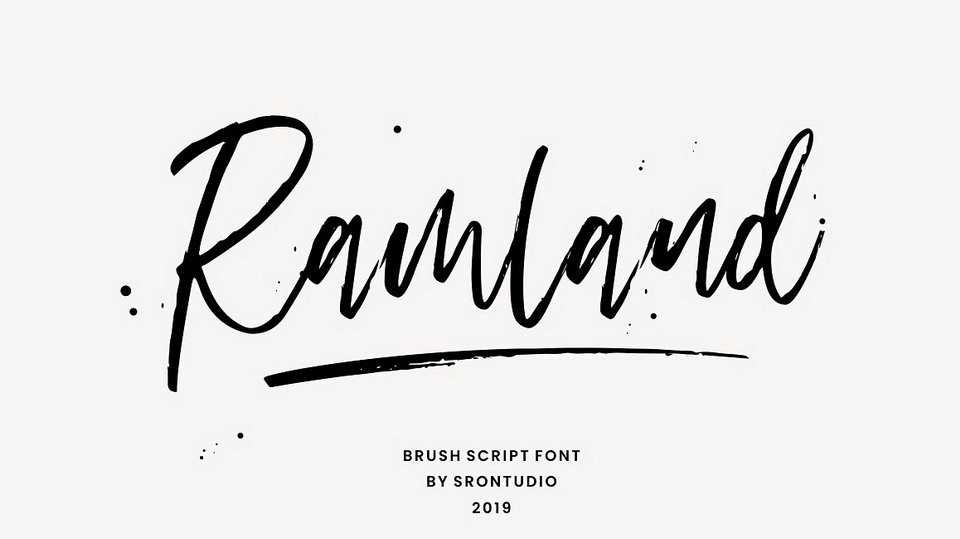
Download Ramland font, an impressive natural textured handbrused font. Perfect for logo, invitation, stationery, wedding designs, social media posts, advertisements, product packaging, product designs, label, photography, watermark, special events or anything.
Designer: Sronstudio